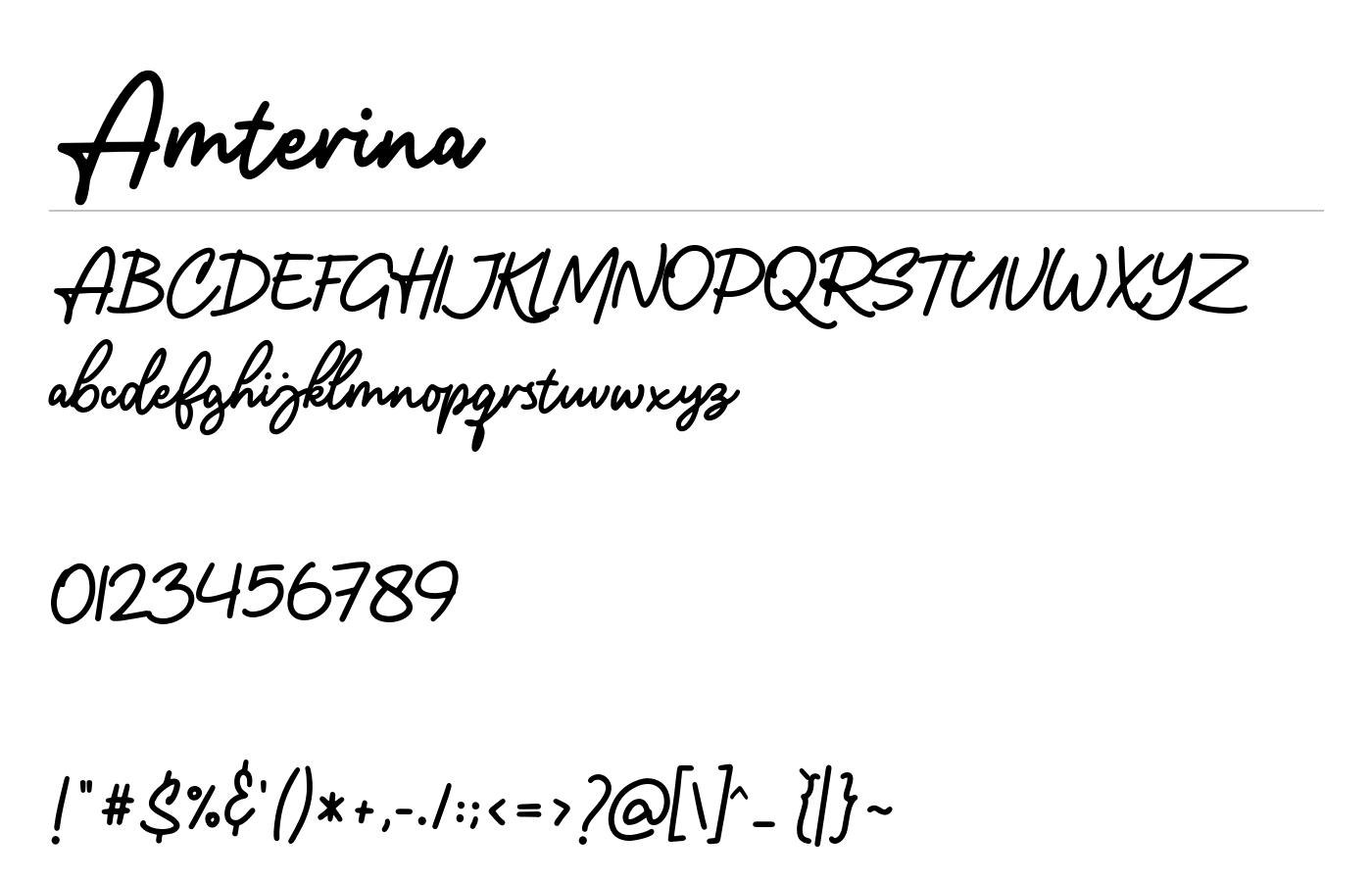
Amterina is a casual, handwritten script font with a lively and friendly feel, featuring smooth, flowing strokes and moderate contrast that give it a natural, approachable look. Its clean letterforms and consistent weight make it versatile for personal branding, invitations, and creative projects where a warm, informal touch is desired. This font works well in headlines and short texts, adding a playful yet polished personality to designs.